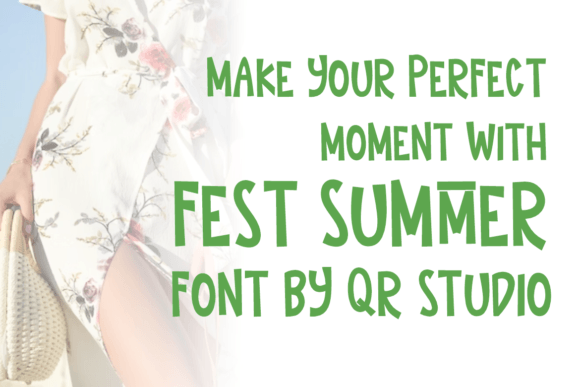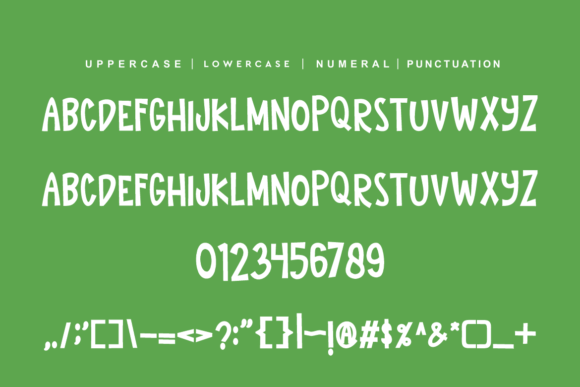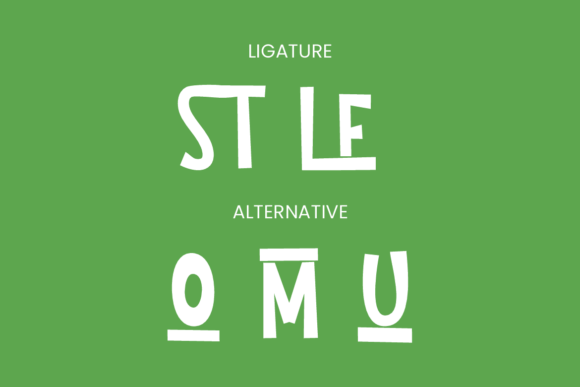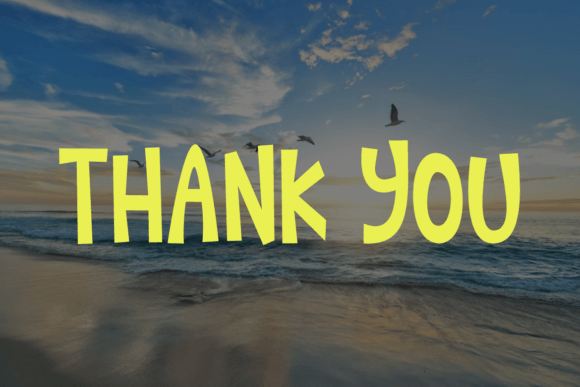
The Summer Vibes are Here: A Deep Dive into Fest Summer Font
Ah, the joys of searching for the perfect font for a project! I recall a particularly frustrating moment when I was working on a summer-themed branding campaign for a client. I had a clear vision of a bold, eye-catching font that would scream “summer fun,” but my usual go-to fonts just weren’t cutting it. That’s when I stumbled upon Fest Summer Font, and let me tell you, it was love at first sight! 💕
An Honest Review of Fest Summer Font
So, what makes Fest Summer Font so special? Here are some of the things I love about it:
- ✨ Bold and authentic: Fest Summer Font has a unique, bold quality that makes it perfect for display purposes.
- ✅ Versatile: This font can be used for a wide range of projects, from logos and greeting cards to summer-themed branding and more.
- 🌞 Perfect for summer vibes: The font’s playful, carefree feel makes it an excellent choice for summer-themed projects.
Of course, no font is perfect, and Fest Summer Font has a few small quirks:
- 🤔 Limited use for body text: Due to its bold nature, Fest Summer Font might not be the best choice for body text or long paragraphs.
- ⚠️ Some glyphs may require manual adjustment: Depending on the context, some glyphs might require manual adjustment to ensure proper spacing and alignment.
One of the best things about Fest Summer Font is its OpenType features and glyphs. With OpenType, you can access:
- Stylistic alternates: Swap out glyphs for alternative versions.
- Ligatures: Combine glyphs for a more cohesive look.
- Swashes: Add flair to your text with decorative swashes.
The Backstory Behind Fest Summer Font
Fest Summer Font was designed with the intention of capturing the carefree spirit of summer. Its creator wanted to craft a font that would evoke feelings of fun, adventure, and warmth. With its bold, playful design, Fest Summer Font is sure to bring a smile to anyone’s face.
| Is Fest Summer Font suitable for body text? | While it’s possible to use Fest Summer Font for body text, it’s primarily designed for display purposes. |